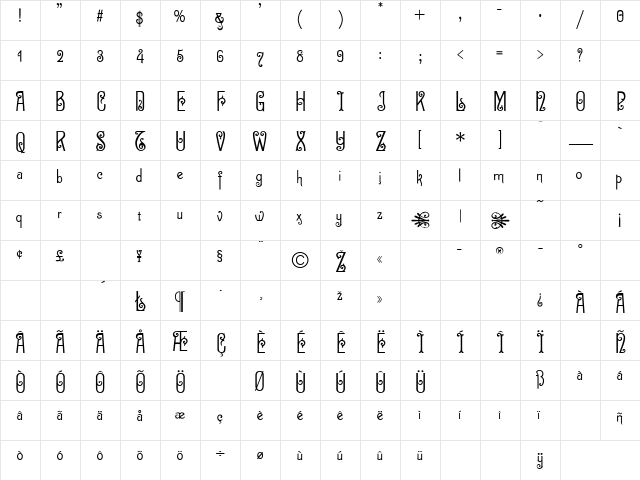
Zinco Regular Free Font
Zinco Regular
Foundry: Digitized by Dan X. Solo. Software by Dover Publications, Inc
Design Context for Zinco
Zinco is a composed and adaptable typeface that performs quietly and consistently across a wide range of design contexts.